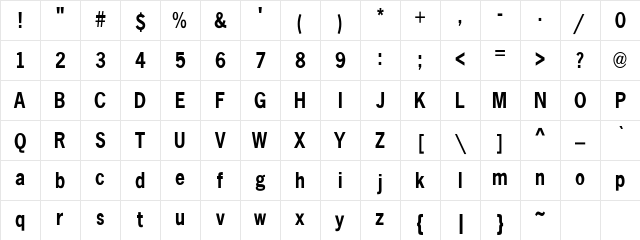
Abell Cond Bold Bold
Design Context for Abell Cond Bold
Abell Cond Bold is a composed and adaptable typeface that performs quietly and consistently across a wide range of design contexts. Its bold stroke weight gives it real presence on the page. Its narrow stance lets it pack a punch even in space-constrained designs.